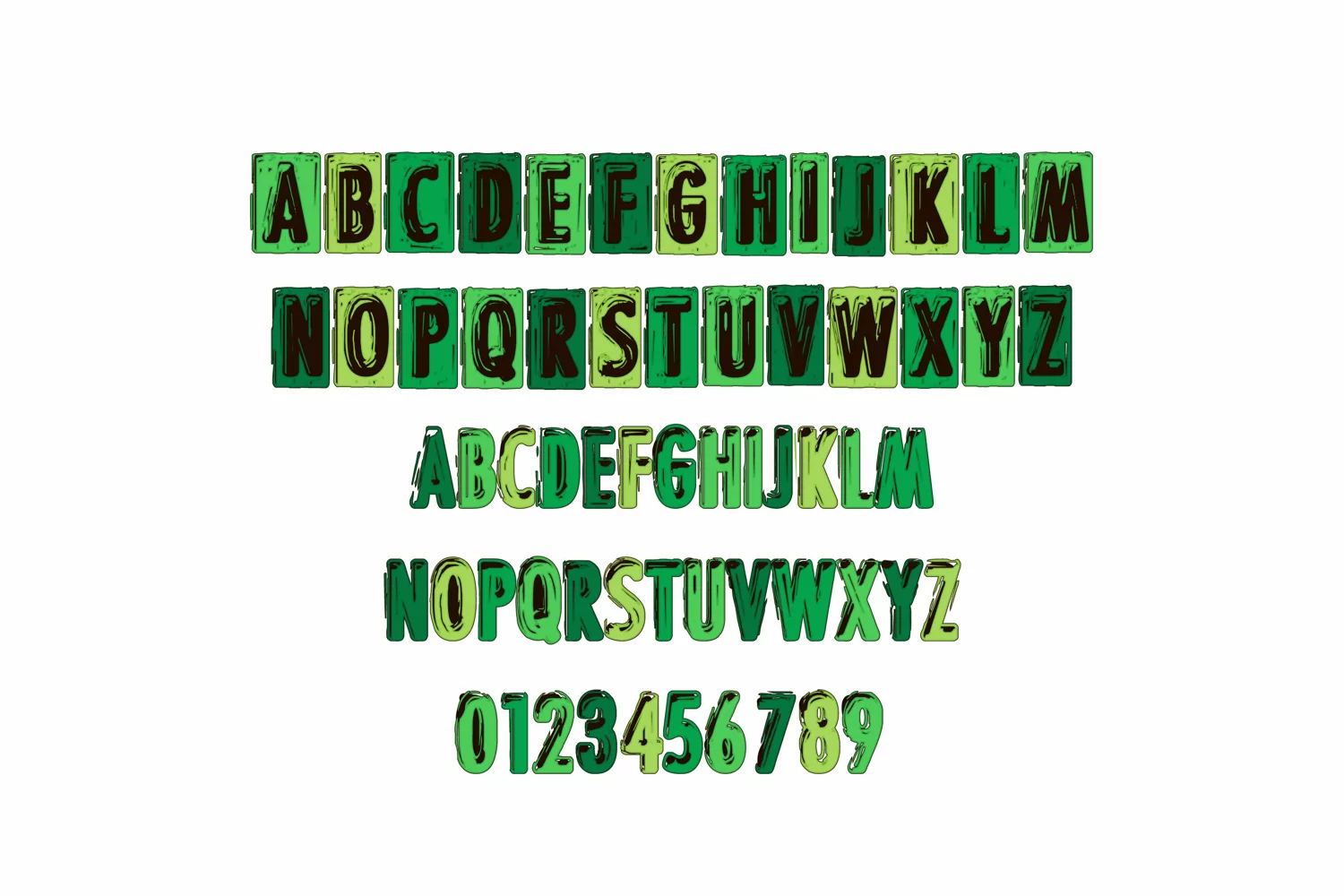
Fifties Irish
This full-color font is a fun font that looks the old imprinted lettering of a registration plate in a green color palette. There is an alt case of additional colors of each letter that you can access through your system or Silhouette's glyph map.